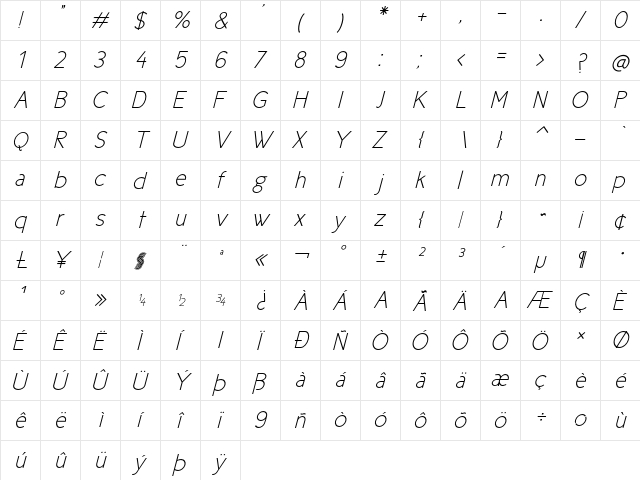
New Cicle Fina Italic
| Foundry | La Tipomatika |
| Designer | La Tipomatika (Digital Type Foundry) |
Design Context for New Cicle Typeface
New Cicle is a composed and adaptable typeface that performs quietly and consistently across a wide range of design contexts. Its italic angle brings a sense of urgency and motion to the letterforms.
Pro Tip: Try New Cicle for annotation and caption copy alongside an upright companion — the contrast in angle creates a dynamic but ordered typographic system.